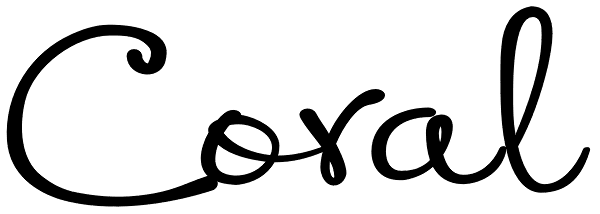
Coral
Coral had its origins in the font Leah. I had requests from users that I create a cursive version of Leah. (In a cursive font the letters are joined together as in handwriting). In the process of development it changed sufficiently that I decided to...